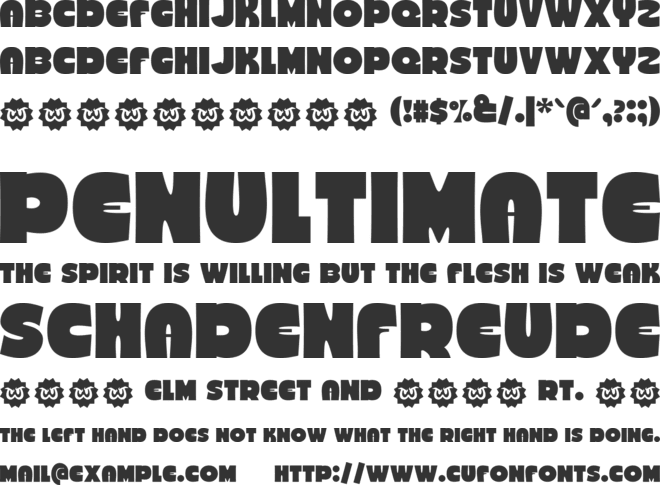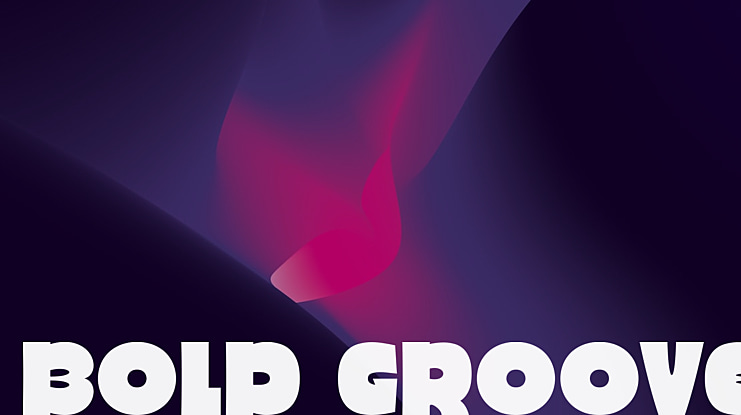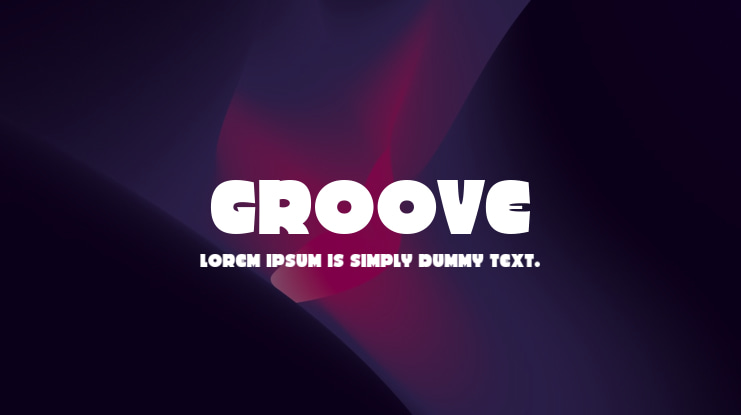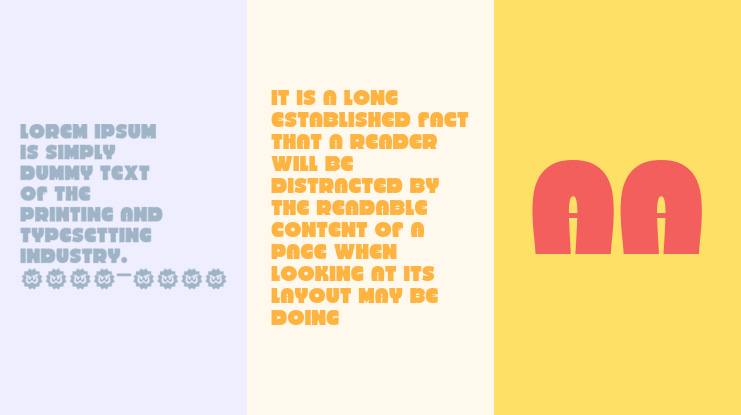
Groove Font
BOLD GROOVE is a typeface that conveys a powerful message with a modern graphic style effortlessly. It brings together simplicity and sophistication in a unique way.
When it comes to design, BOLD GROOVE has all the essentials to infuse creativity and personality while maintaining readability. Let this font impress your audience and effectively deliver your message with a strong impact.